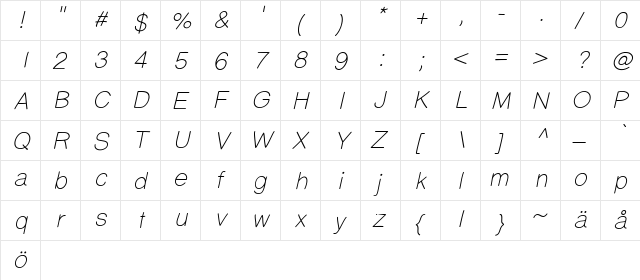
PrinsesstartaDEMO LightItalic
Design Context for PrinsesstartaDEMO Typeface
PrinsesstartaDEMO offers clean, dependable letterforms without strong stylistic allegiance, making it a practical choice for designers who need flexibility. The slanted form adds forward momentum and visual energy. The delicate stroke weight brings airiness and refinement to layouts.
Pro Tip: Try PrinsesstartaDEMO for annotation and caption copy alongside an upright companion — the contrast in angle creates a dynamic but ordered typographic system.